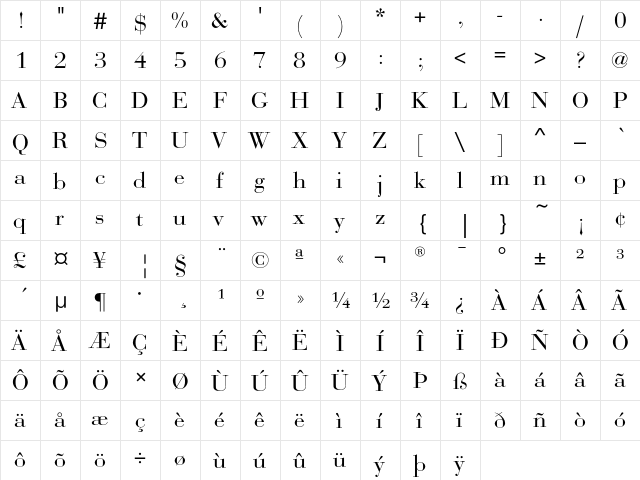
BauerBodoniEF Regular Font Preview
BauerBodoniEF Regular
BauerBodoniEF Regular Font Details
Design Context for BauerBodoniEF Typeface
BauerBodoniEF takes a measured approach to typography — its balanced proportions and neutral character make it a reliable workhorse for both digital and print work.